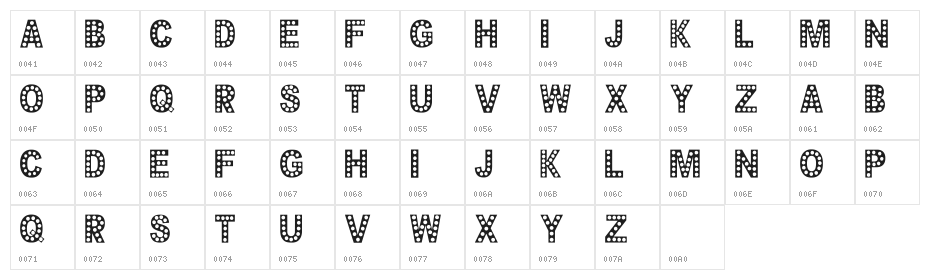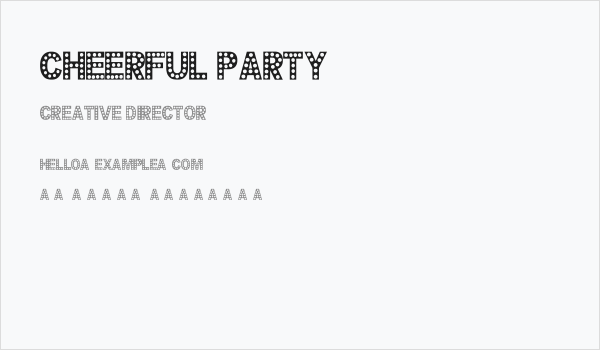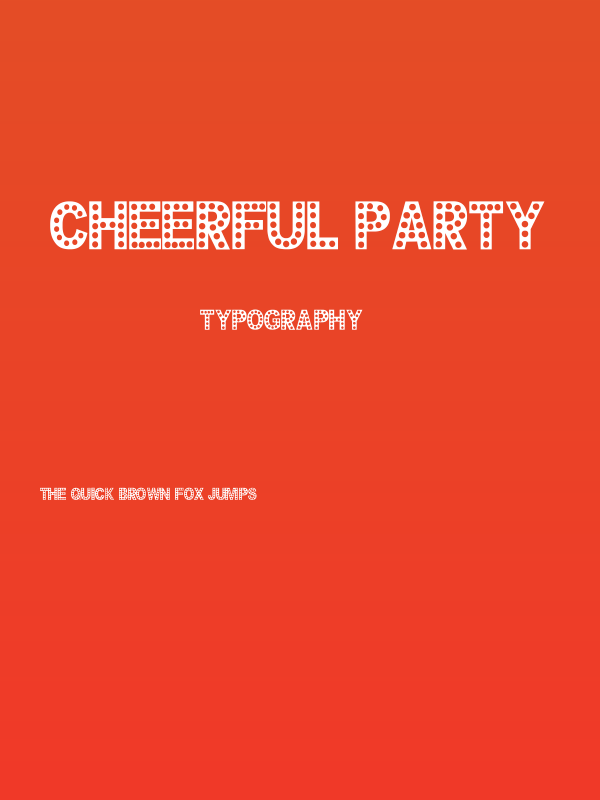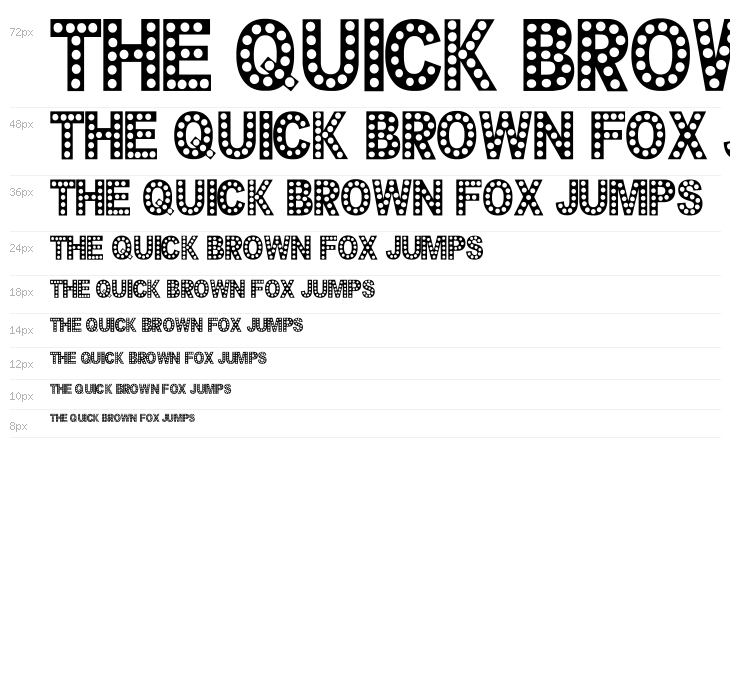
CHEERFUL PARTY Font
CHEERFUL PARTY Description
This font features a bold, decorative style with a playful and festive appearance. Each character is filled with evenly spaced circular dots, creating a lively and dynamic visual effect. The uppercase letters are uniform in height and width, contributing to a cohesive and structured look. The dotted pattern adds a sense of movement and energy, making it ideal for celebratory or party-themed designs. The font's unique style captures attention and conveys a sense of fun and excitement, perfect for creative projects that aim to stand out.
| Proposed Projects | Ideal for party invitations, event posters, festive banners, and playful branding. |